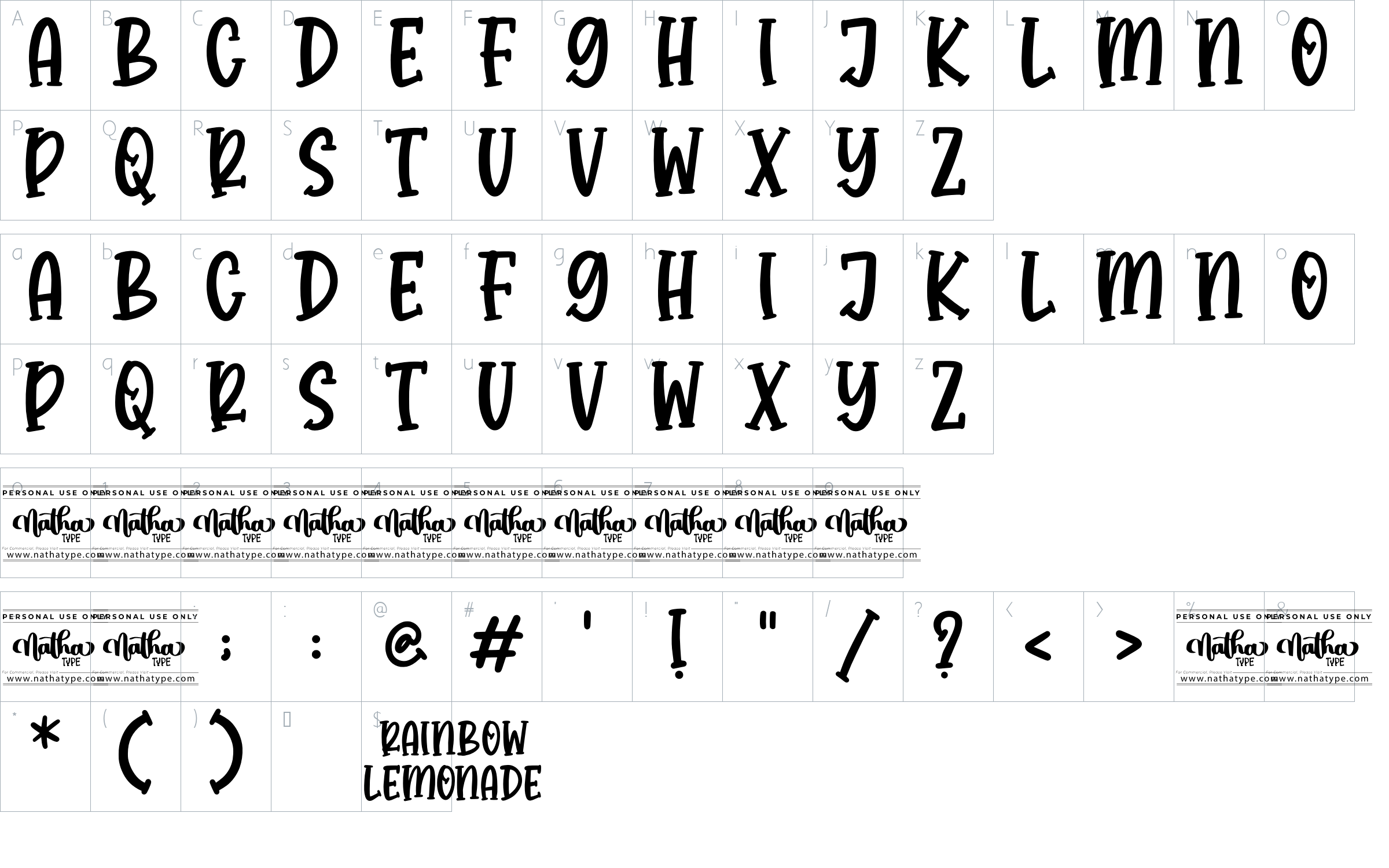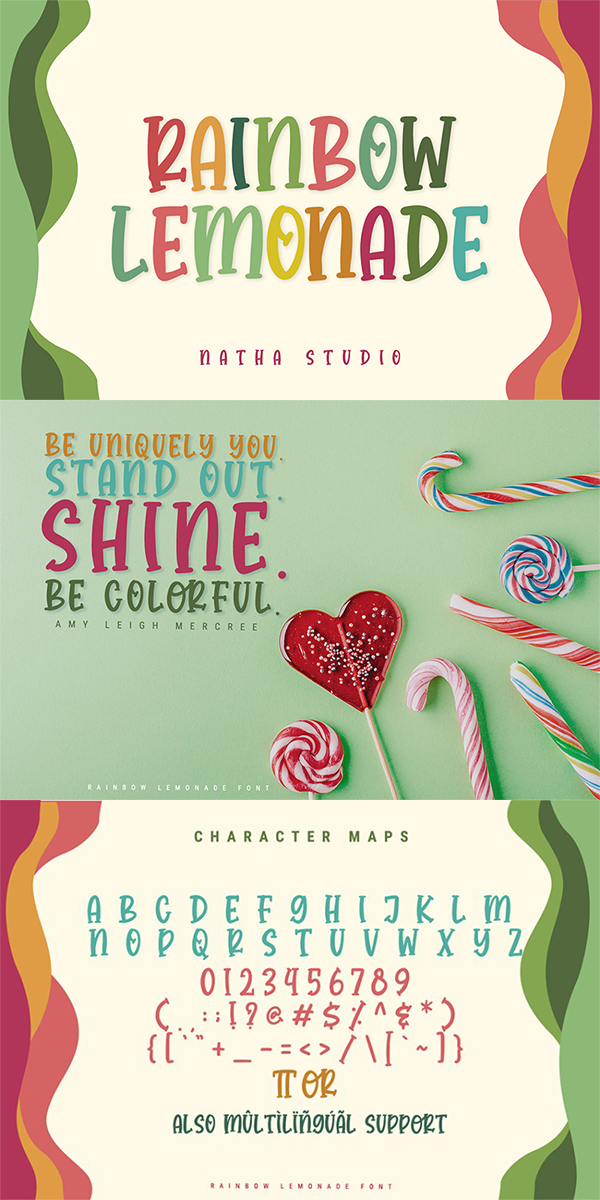
Rainbow Lemonade Font
About Rainbow Lemonade
Rainbow Lemonade is a playful display font. It brings an attractive typeface. Made for any professional projects.The font is suitable for any branding project like logo, t-shirt printing, wedding invitations, and greeting cards to social media quotes, branding, and more! Outstanding in a wide range of contexts.